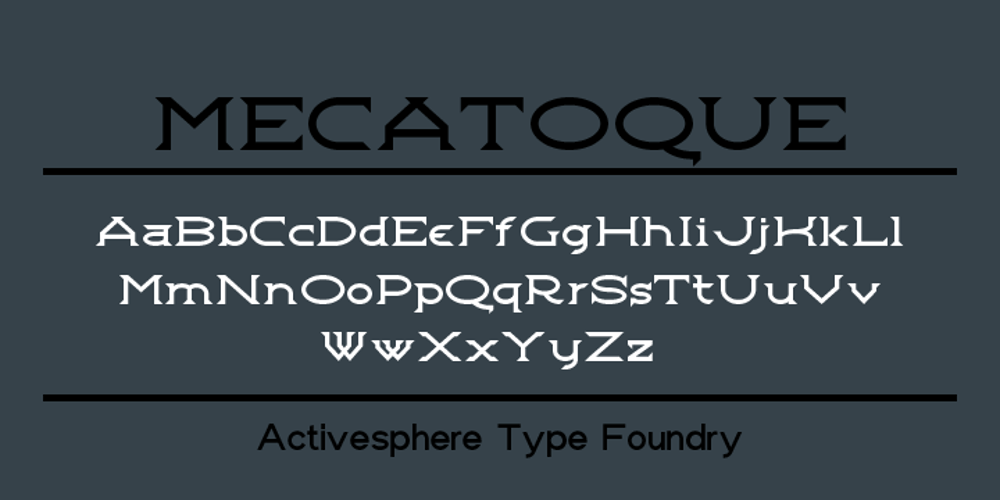
Mecatoque Font Family was designed by Ronnie Dela Cruz and published by ActiveSphere. Mecatoque contains 2 styles and family package options. Mecatoque is a sharp, futuristic display font and works best in text and display applications, such as posters, headline, magazine, logos and titles. Mecatoque font has a full upper and lower-case, accents, punctuation and a selection of monetary symbols. Currently Available for Mac and PC, in Open Type, PostScript or TrueType.